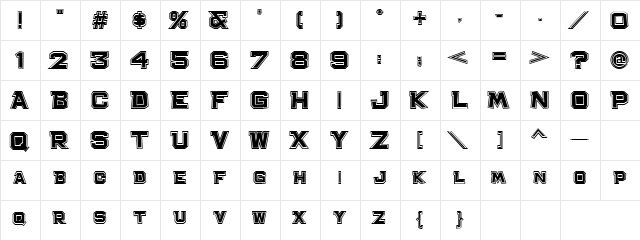
Bachelor Pad College JL Regular
| Foundry | Jeff's Fonts & Dingbats |
| Designer | Jeffrey N. Levine |
Design Context for Bachelor Pad College JL Typeface
Bachelor Pad College JL has the bold swagger of sports branding: strong, assertive letterforms designed to dominate headlines and jerseys alike.
A natural choice for gym brands, fantasy sports, jersey lettering, and action-driven headlines.